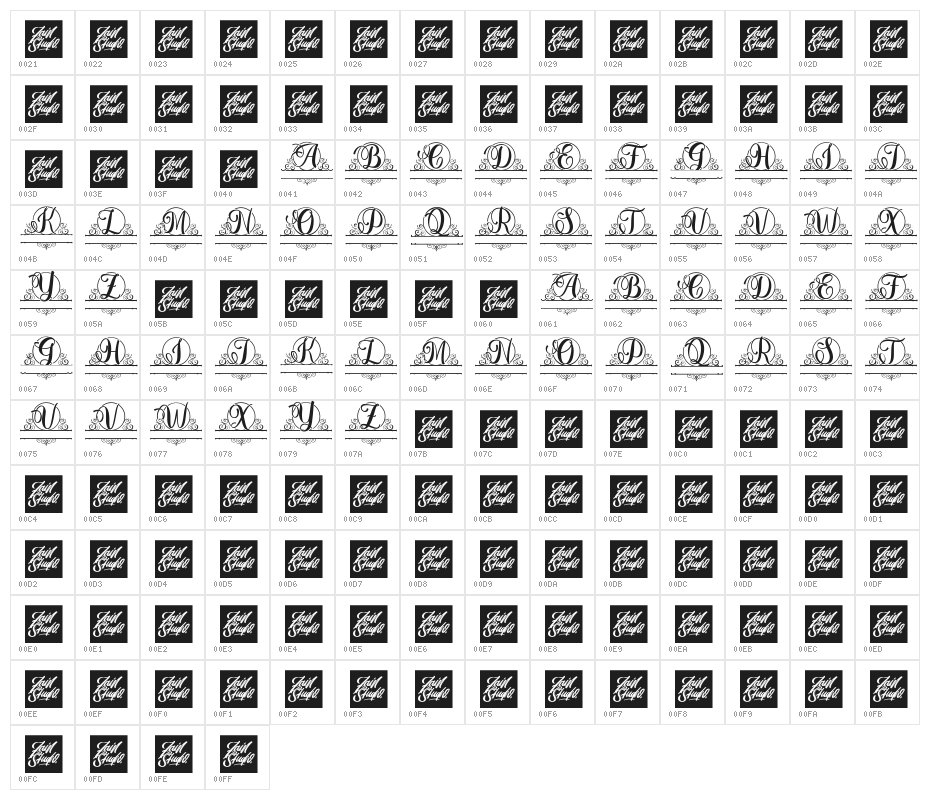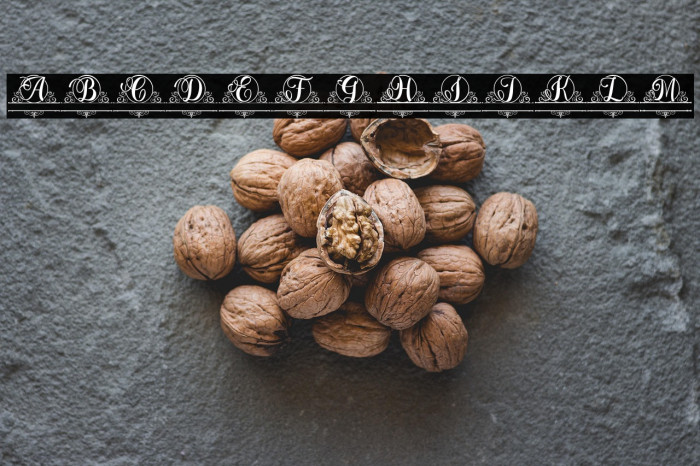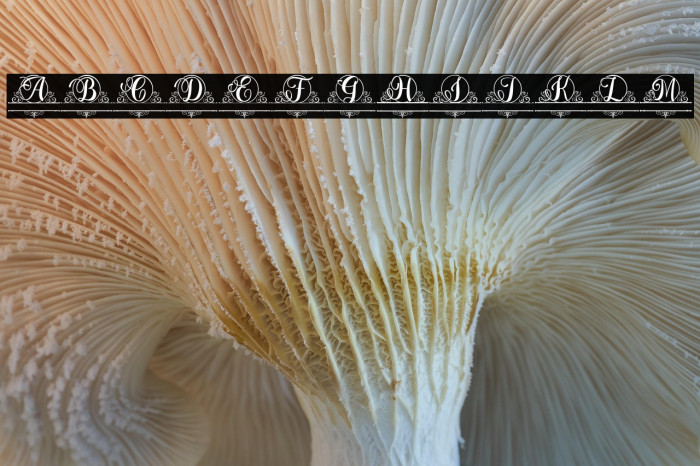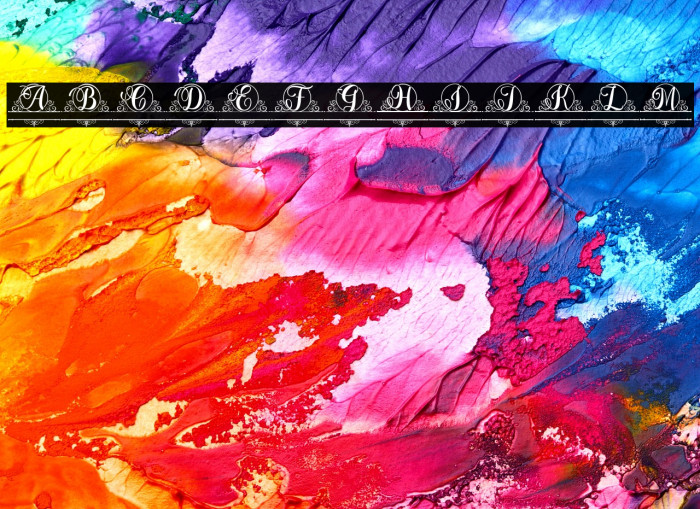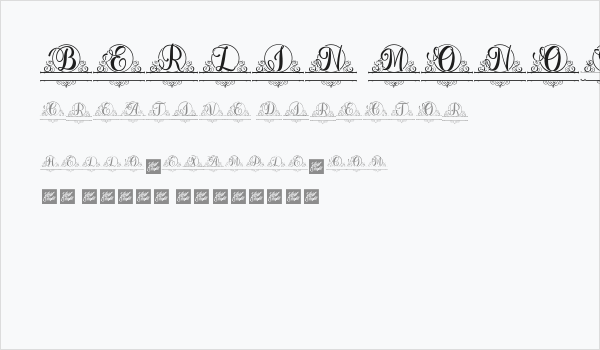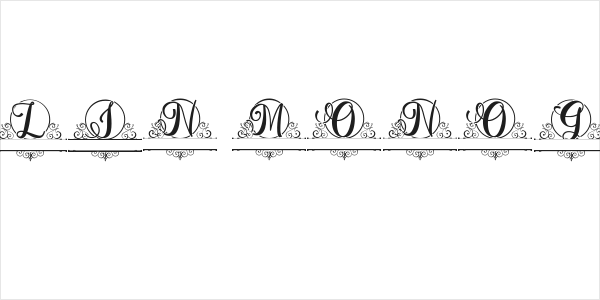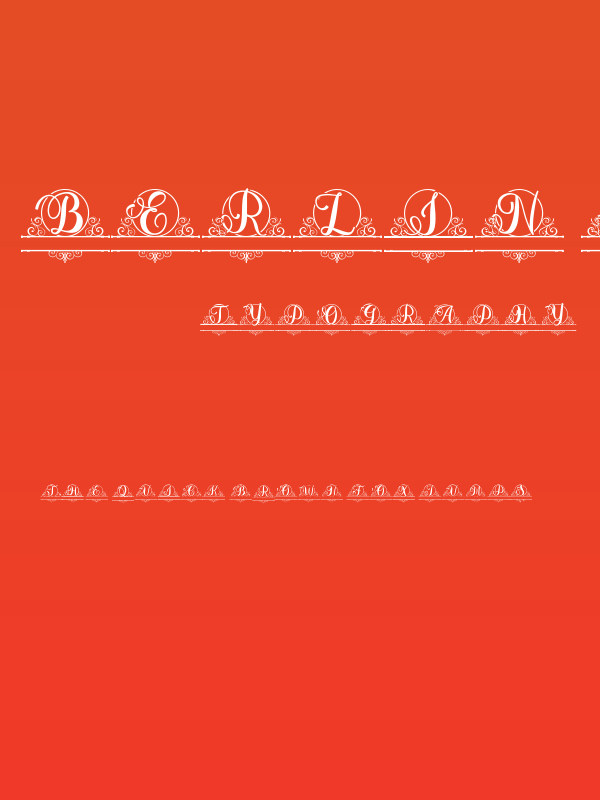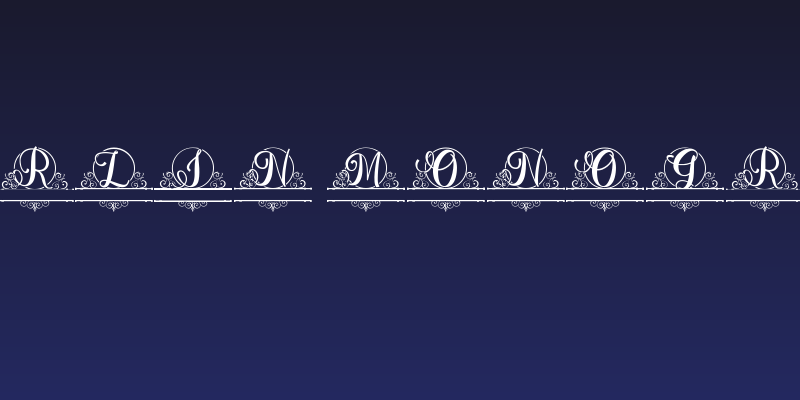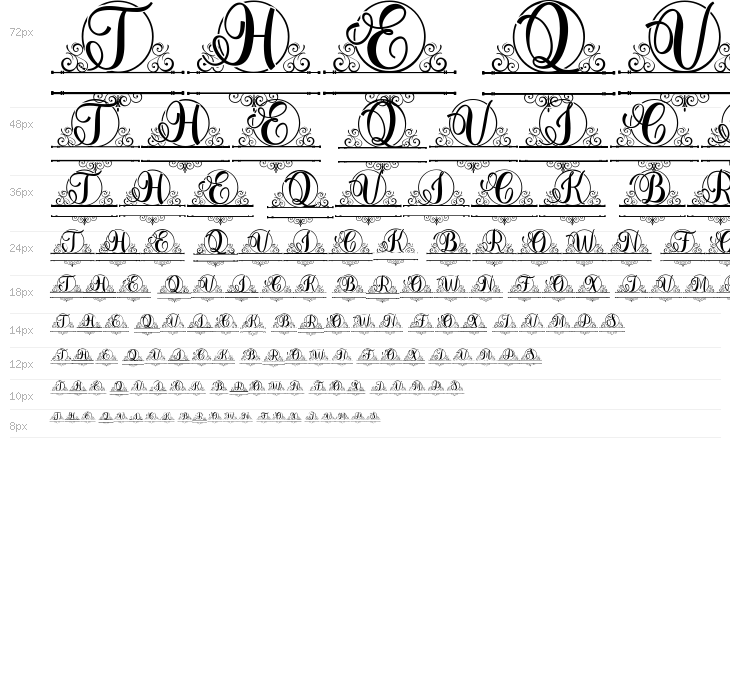
Berlin Monogram Font
Berlin Monogram Description
This font exudes elegance and sophistication, characterized by its intricate and ornate design. Each letter is encased in a decorative circle, featuring elaborate flourishes and embellishments that give it a regal and classical appearance. The uppercase letters are particularly striking, with their bold and intricate detailing, making them ideal for creating monograms or decorative initials. The font's style is reminiscent of vintage calligraphy, with a touch of modern flair, making it versatile for various design applications. Its unique aesthetic is perfect for projects that require a touch of luxury and refinement.
| Proposed Projects | This font is perfect for wedding invitations, luxury branding, monogram designs, and decorative signage. |